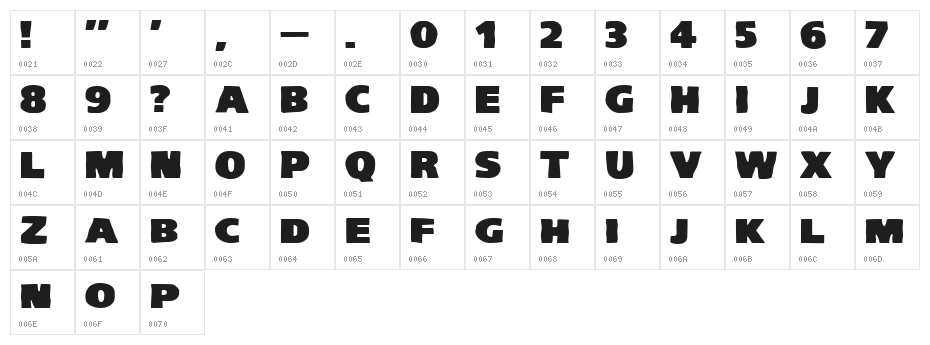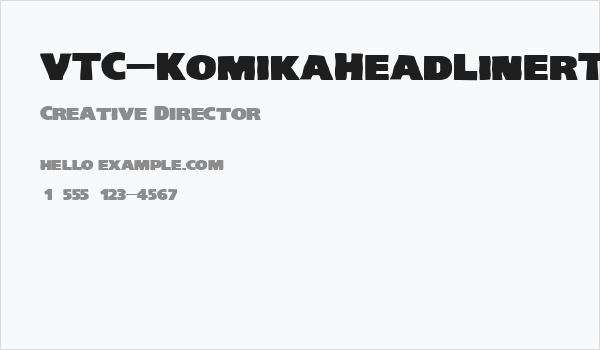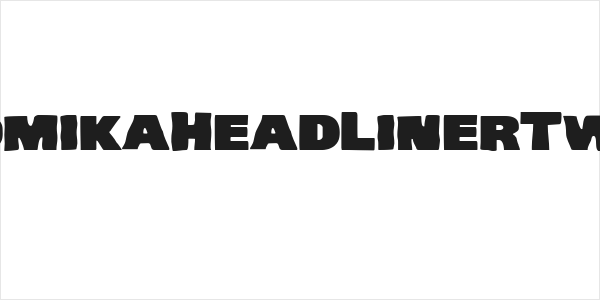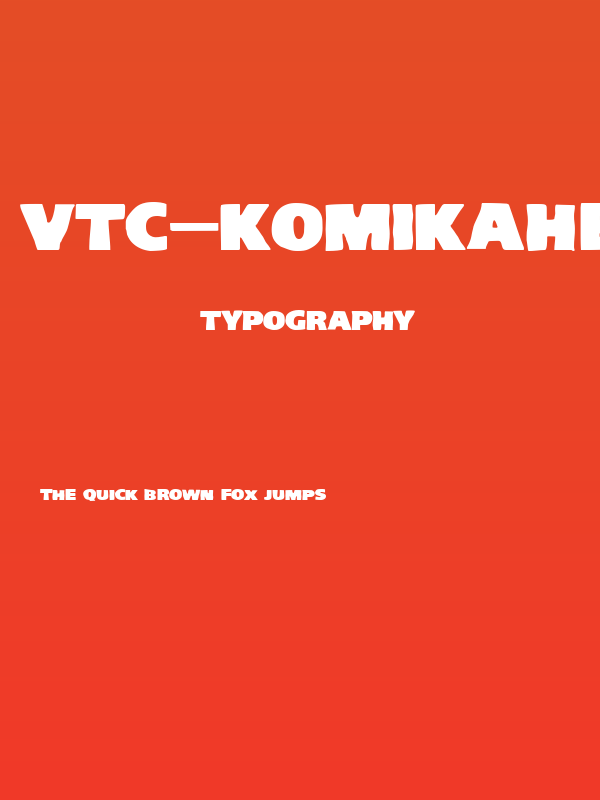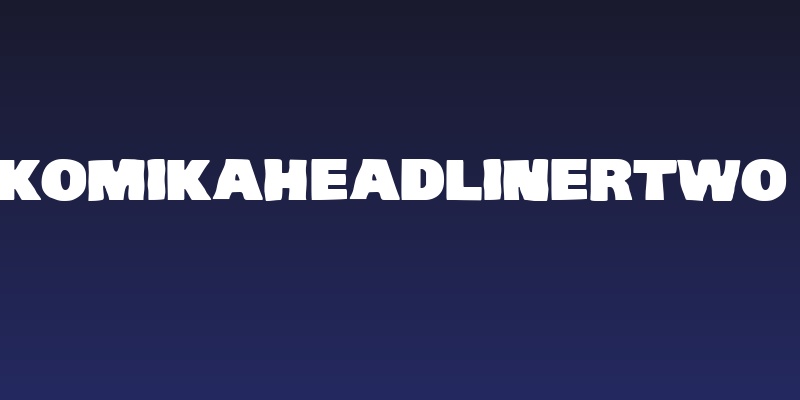
VTC-KomikaHeadLinerTwo Wide Font
VTC-KomikaHeadLinerTwo Wide Description
This font features bold, heavy strokes with a playful and cartoonish style, making it ideal for eye-catching designs. The characters are wide and rounded, giving a sense of friendliness and approachability. The uppercase letters are particularly prominent, with a strong presence that demands attention. The numbers and special characters maintain the same boldness, ensuring consistency across all text elements. This font is perfect for projects that require a fun and engaging look, such as children's books, comic strips, or playful branding materials.
| Overall Style | Playful, Cartoonish |
| Proposed Projects | Children's books, comic strips, playful branding, posters, and merchandise. |